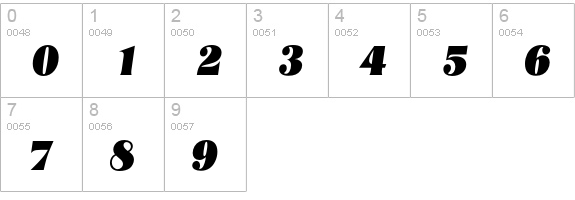
Nashville-HeavyIta Font Details
Nashville-HeavyIta font is a stunning display typeface that exudes sophistication and elegance. With its bold and italicized design, this font is perfect for creating eye-catching headlines, posters, logos, and more. The unique letterforms and stylish curves of Nashville-HeavyIta add a touch of modernity to any design project. What makes Nashville-HeavyIta even more appealing is that it is available for free download at FontsMarket.com. This means that you can easily access this beautiful font and use it in your personal and commercial projects without any cost. Don't miss out on the opportunity to enhance your designs with the striking Nashville-HeavyIta font - download it for free today!